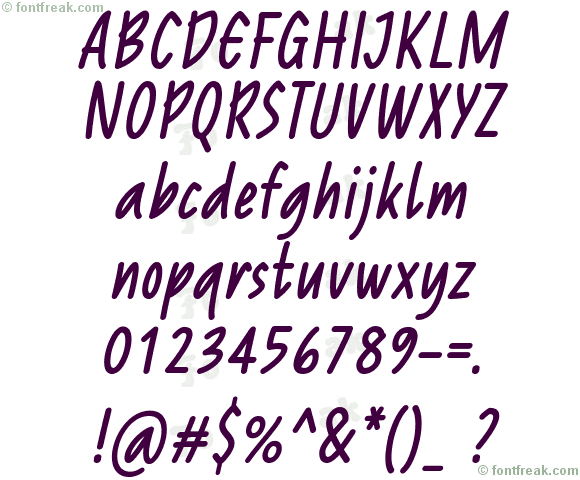
Reprineato Italic
About Reprineato Italic
Reprineato Italic is a captivating script font designed by Situjuh Nazara, falling within the category of decorative typefaces. This typeface features graceful, flowing lines that enhance its elegant character. The stroke weight varies subtly, providing a pleasing contrast that adds depth and dynamism to each letterform. The spacing is well-balanced, allowing for smooth readability while maintaining a stylish flair. Its unique personality is accentuated by delicate curves and swashes, making it an ideal choice for designs that aim to convey sophistication and warmth.
This font excels in various use cases, including wedding invitations, where its romantic style can beautifully complement the occasion. It is also well-suited for branding projects, such as logos for boutique shops or artisanal products, helping to create a memorable identity. Furthermore, Reprineato Italic can enhance restaurant menus, adding an air of elegance that invites diners to explore the offerings. It is equally effective in crafting stylish greeting cards or promotional materials that require a touch of artistry.
The target audience for this font includes graphic designers, small business owners, and content creators who are seeking a versatile typeface that adds a personalized touch to their work. Whether you’re creating a digital design or printed material, Reprineato Italic can elevate the aesthetic appeal of your project.
What sets Reprineato Italic apart is its ability to blend elegance with approachability. Its fluid forms and artistic nuances make it a standout choice for anyone looking to infuse their designs with a sense of style and creativity. For those interested, a Reprineato Italic font free download is available, allowing you to explore its beauty in your own projects without any cost.